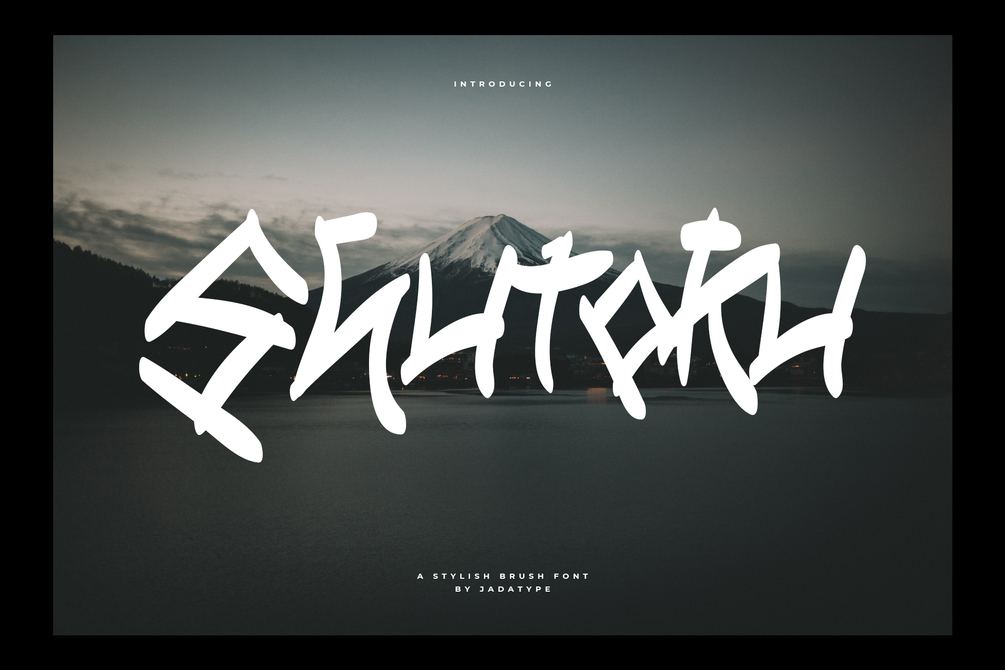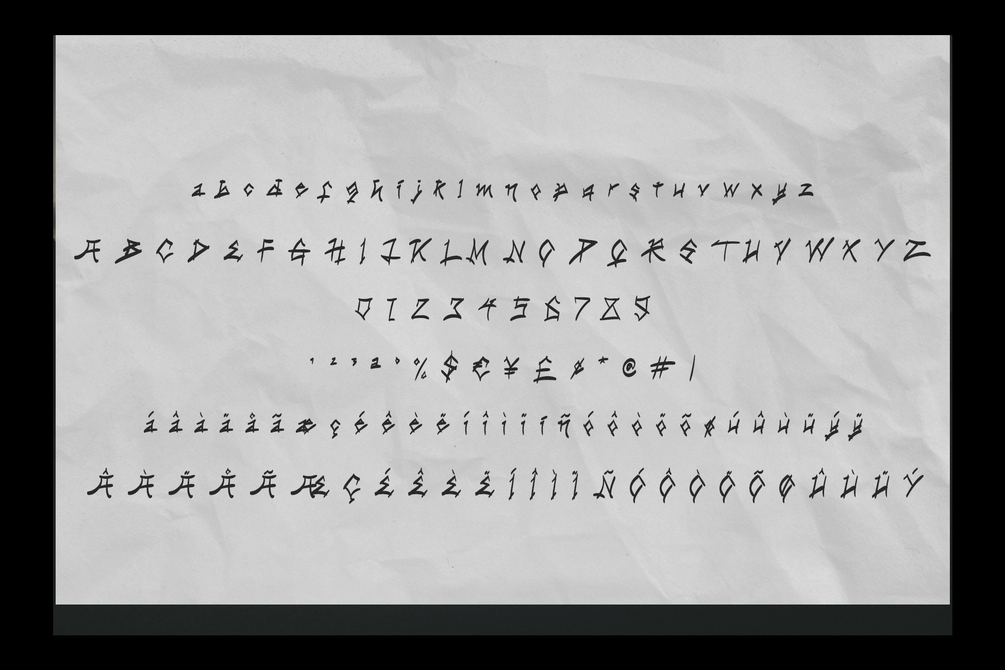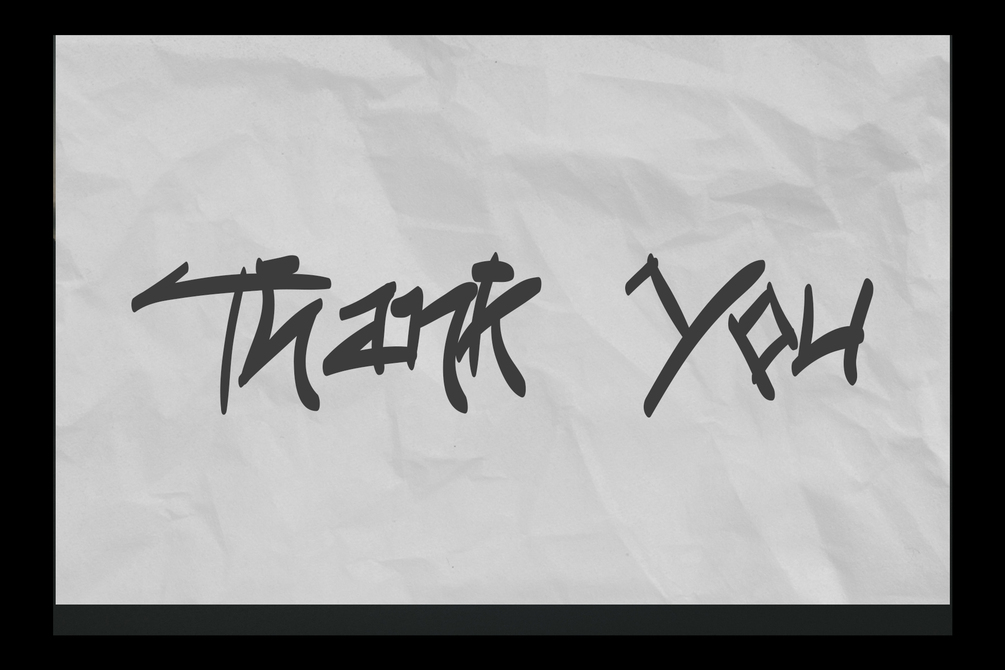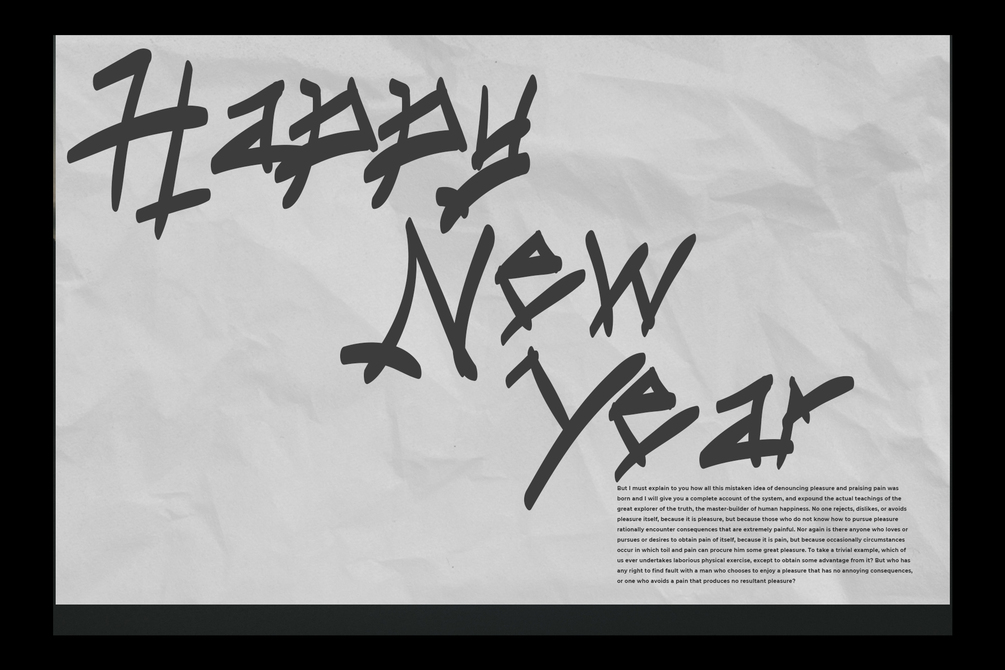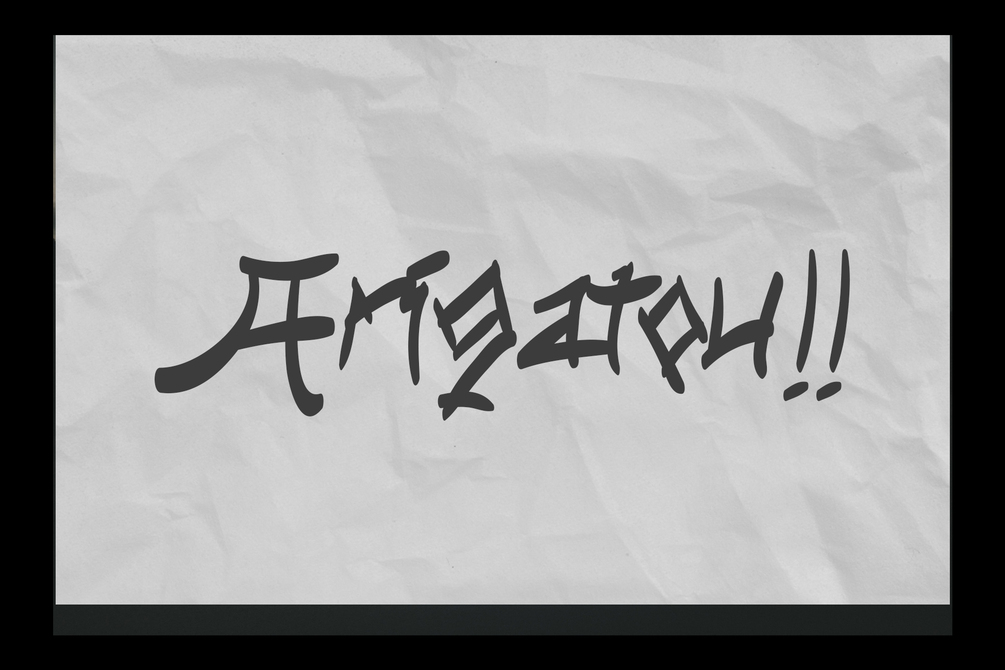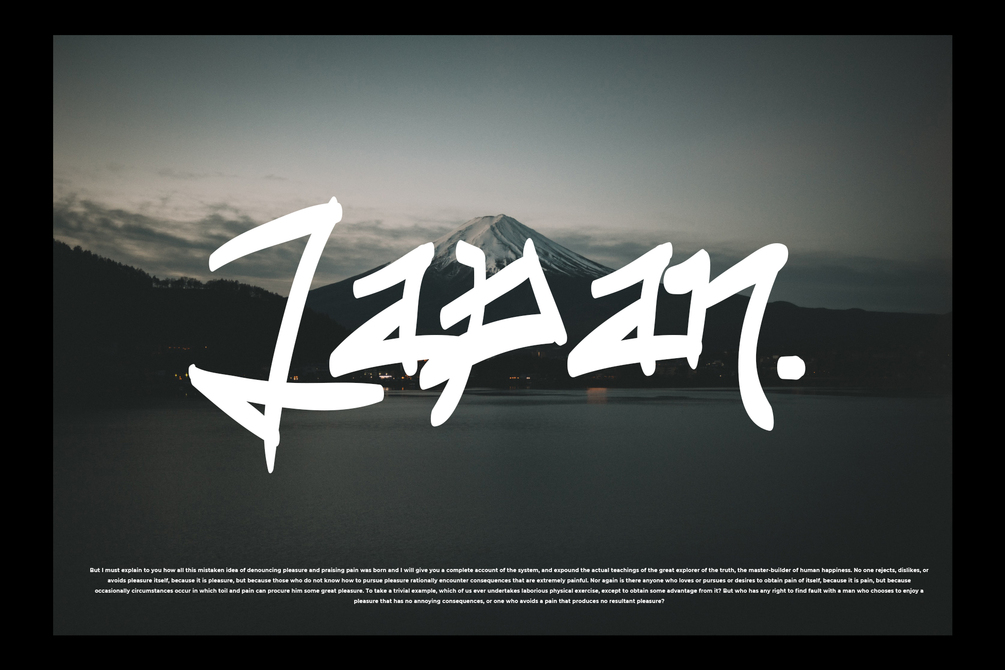
Shutoku Font
Shutoku is a display font that gives the impression of a stylish brush. suitable for supporting your graphic design, social media, clothing design, events and so on. contains standard english letters and some that support multilingual.